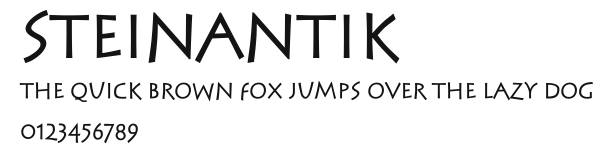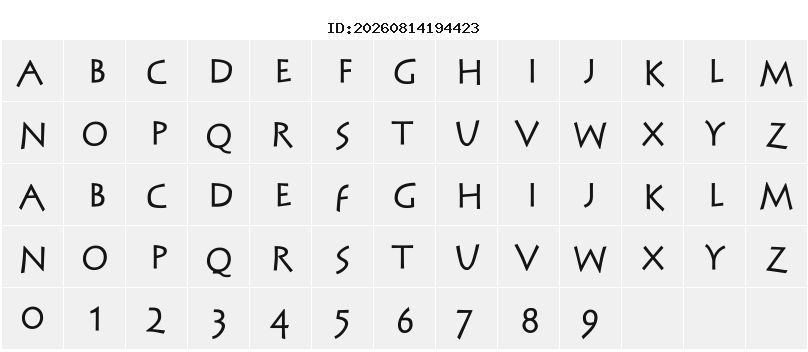
SteinAntik Preview
• Font Name: SteinAntik
About SteinAntik.ttf
SteinAntik.ttf is a modern, elegant sans-serif font designed for ultimate readability and visual harmony. Perfect for branding, headlines, web design, and print materials.